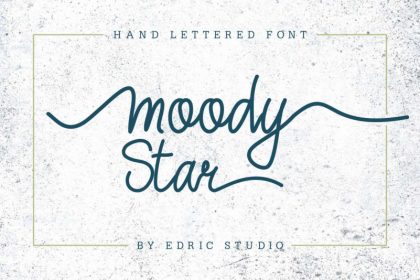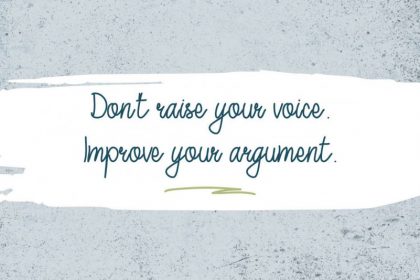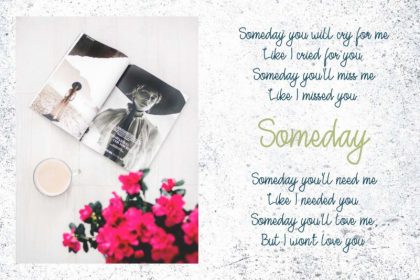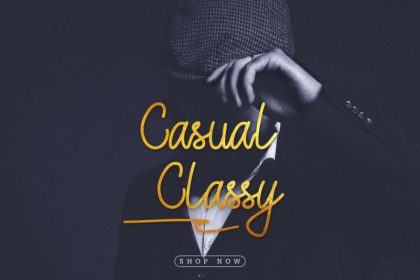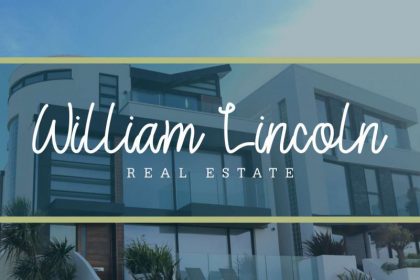
Moody Star Script Font
It is us again : EDRIC Studio, Please welcome! The newest font from our artists. A handwriting font : Moody Star Script Font! This is a handwriting font, handcrafted from our Studio here in, Indonesia. The artists/designers of this beautiful typeface is Nouval. Moody Star Script Handwriting Font is an exclusive handwriting script typeface with manual pen style. This font has a stunning characters set, perfectly managed with well spaced and kerning. The theme style of this font will elegant, vintage, stylish and sophisticated style. You wont find any where else, the font like Moody Star Script Handwriting Font.